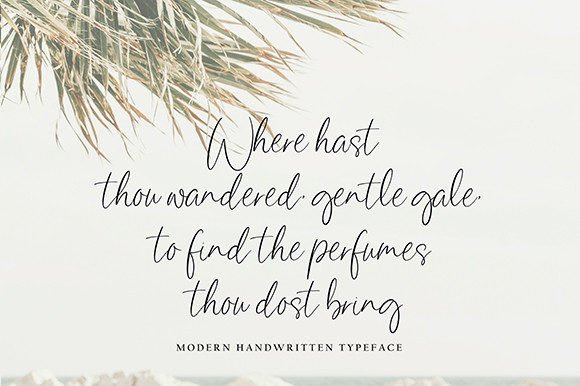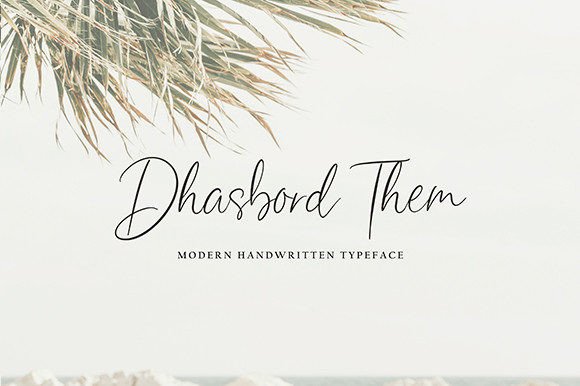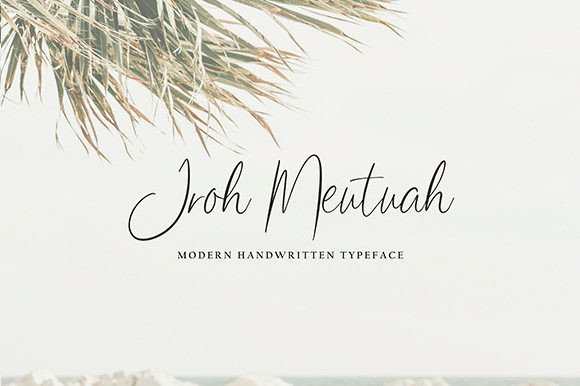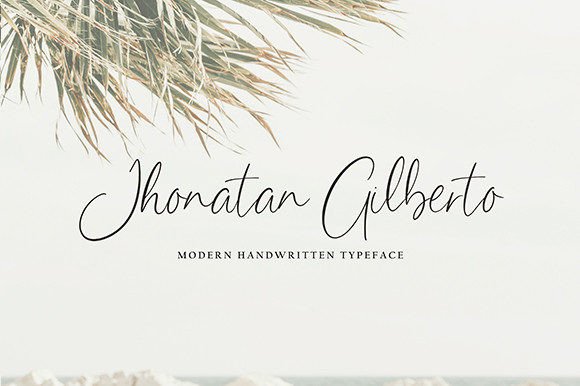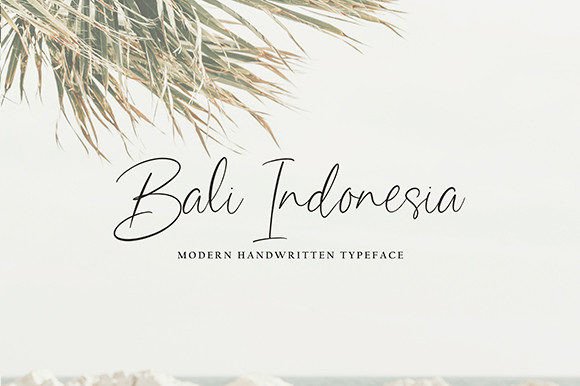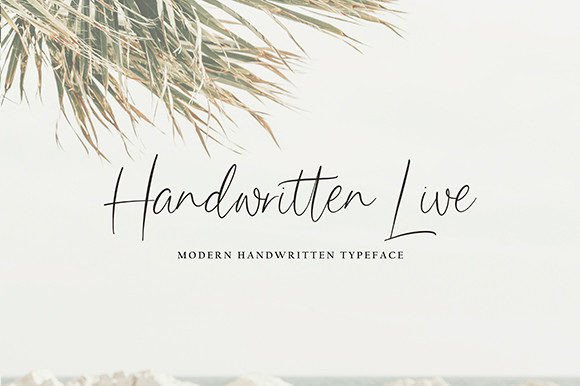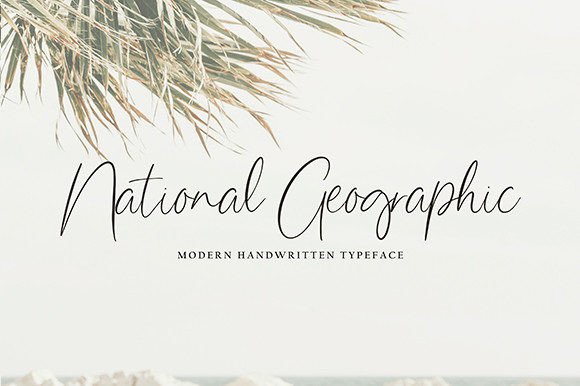
Battem Shampo Font
About Battem Shampo Font
Battem Shampo is a script font with a new style. This typeface will be perfect for many different projects such as quotes, logos, blog headers, posters, banding, letters, invitations, stationery, etc.